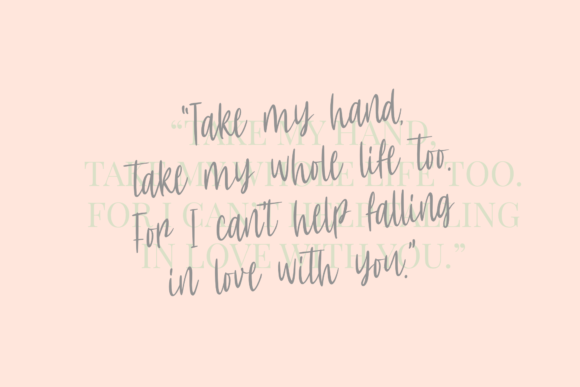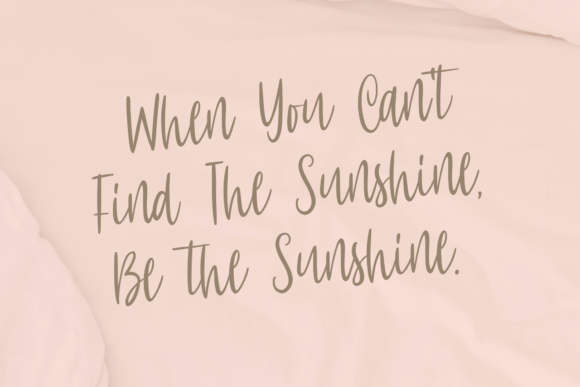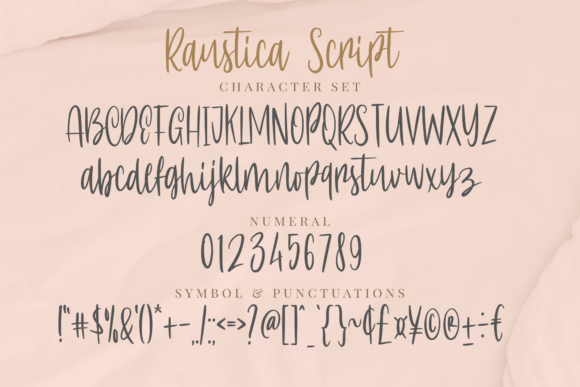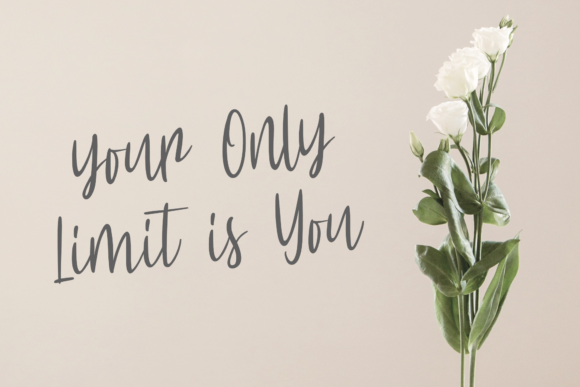
Introduction to Raustica Font
Have you ever been working on a creative project, pouring your heart and soul into every detail, only to find the perfect font that brings it all together? For designers, the search for that elusive font can be a long and arduous one. But what if I told you that there’s a font that can elevate your designs to the next level? Enter the Raustica Font, a delicate and elegant handwritten font that’s about to become your new best friend.
This stunning font is more than just a design resource – it’s a game-changer. With its distinct and well-rounded letters, the Raustica Font is perfect for creating high-quality designs that stand out from the crowd. Whether you’re working on a project with a transparent background or a bold, eye-catching graphic, this font is sure to impress. And the best part? It’s available for free download, making it a valuable addition to any designer’s toolkit.
- Unique characteristics include a rustic, vintage feel and a wide range of stylistic options.
Honest Review: Raustica Font
As a designer, I’m always on the lookout for high-quality design resources to elevate my creative projects. Recently, I came across the Raustica Font, and I must say it’s been a game-changer.
- ✨ Elegant and sophisticated design aesthetic that’s perfect for premium brands
- ✨ High quality, crisp and clear font that’s great for print and digital applications
- ⚠️ Limited font styles and weights, which may not be suitable for designers working on complex projects
- ⚠️ Not ideal for use in extremely small text sizes, as it may become difficult to read
Overall, I’m thoroughly impressed with the Raustica Font. Its sleek design and high-quality output make it an excellent choice for designers working on premium creative projects. While it may not be perfect, its free download and transparent background option make it a valuable addition to any design resource collection.
Common Use Cases for Raustica Font
The Raustica Font is ideal for logos, branding materials, social media graphics, and presentations. Its elegant design makes it perfect for a wide range of creative projects, from business cards to brochures.